Understanding the psychology of fonts in florist branding is essential for creating designs that feel emotional, elegant, and visually appealing. In the floral industry, branding is associated with feelings such as love, celebration, sympathy, and joy. Therefore, typography must reflect these emotions clearly.
Fonts are not just visual elements; they communicate mood and personality. When paired correctly with floral elements, typography can strengthen brand identity and create a memorable experience.
In this article, we will explore the psychology of fonts in florist branding, basic typography principles, and how to align fonts with different types of flowers.
Why the Psychology of Fonts in Florist Branding Matters
The psychology of fonts in florist branding plays a key role in how customers perceive your business. People often make decisions based on emotions, especially when buying flowers.
Typography helps:
- Create an emotional connection
- Build trust and credibility
- Strengthen brand identity
- Enhance visual storytelling
Moreover, fonts influence how customers interpret your brand message. As a result, choosing the right typography can increase engagement and sales.
Basic Understanding of Typography Psychology
Before applying the psychology of fonts in florist branding, it is important to understand basic typography psychology.
1. Serif Fonts: Classic and Elegant
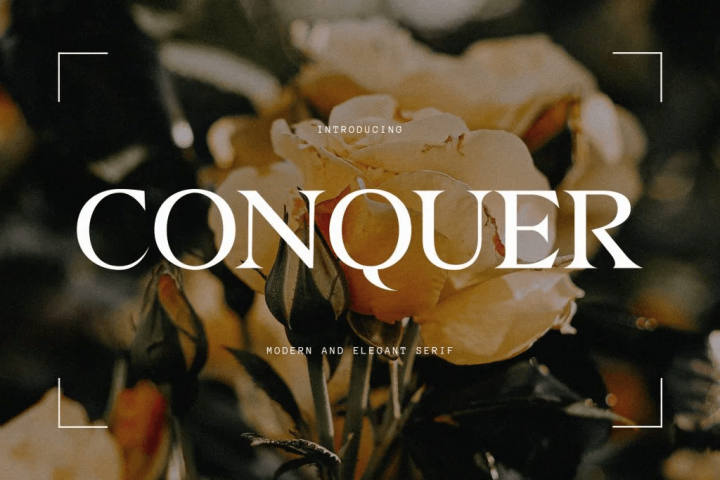
Serif fonts are often associated with tradition and luxury.
Emotional impact:
- Trust
- Elegance
- Sophistication
Best for:
- Wedding florists
- Luxury floral brands
2. Sans-Serif Fonts: Clean and Modern
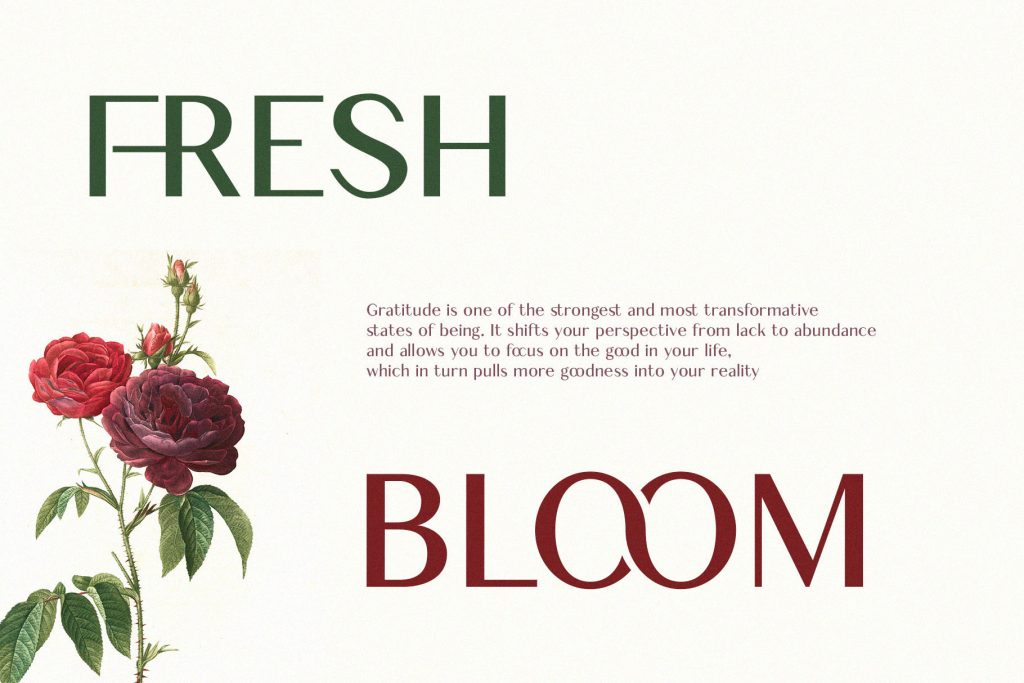
Sans-serif fonts feel simple and fresh.
Emotional impact:
- Clarity
- Modernity
- Simplicity
Best for:
- Minimalist floral brands
- Online flower shops
3. Script Fonts: Romantic and Personal
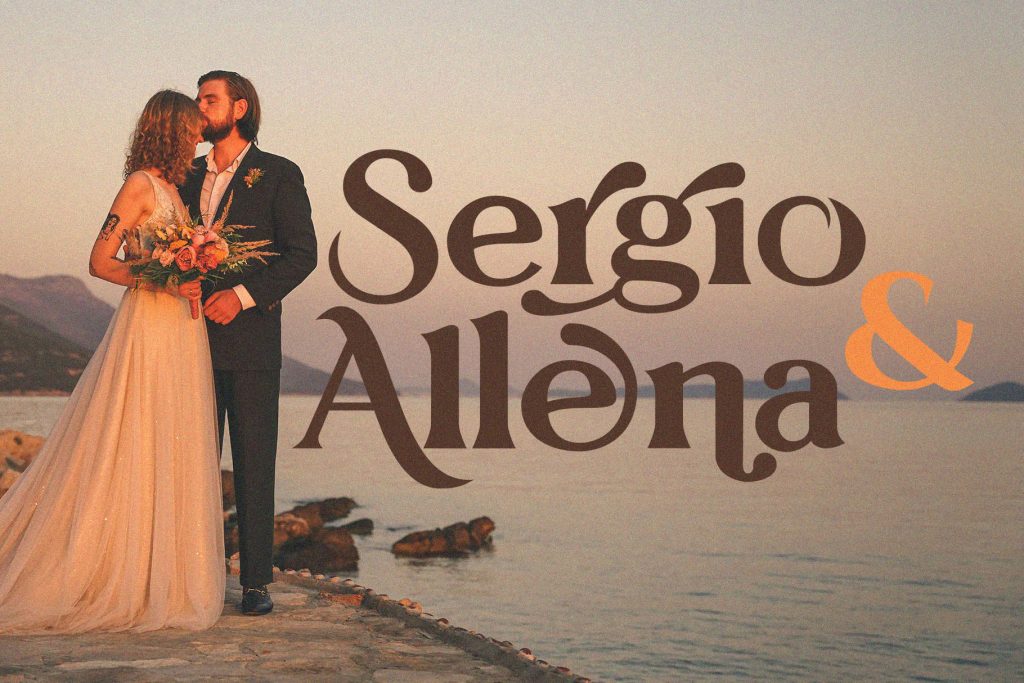
Script fonts mimic handwriting and feel emotional.
Emotional impact:
- Love
- Warmth
- Creativity
Best for:
- Romantic bouquets
- Wedding designs
4. Display Fonts: Unique and Expressive
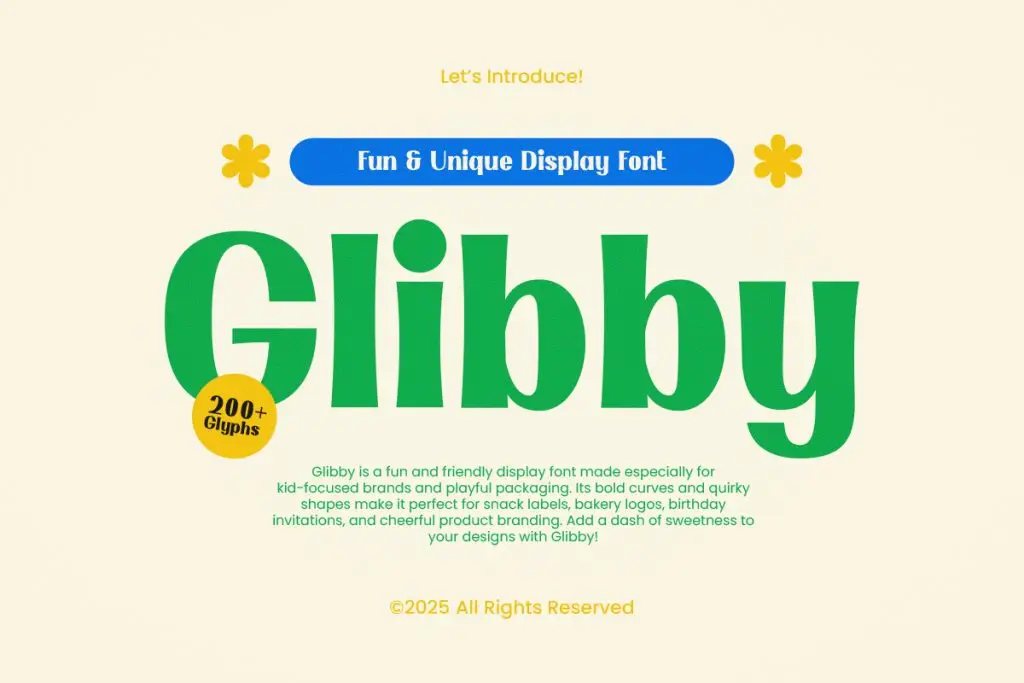
Display fonts are bold and decorative.
Emotional impact:
- Creativity
- Attention
- Personality
Best for:
- Promotional campaigns
- Seasonal designs
The Psychology of Fonts in Florist Branding and Emotion
Understanding the psychology of fonts in florist branding helps designers create emotional experiences.
For example:
- Soft script fonts → Romantic feeling
- Clean sans-serif → Fresh and natural
- Elegant serif → Premium and classic
Because of this, typography must align with the design’s emotional purpose.
Aligning Fonts with Types of Flowers
One of the most important aspects of the psychology of fonts in florist branding is aligning typography with flower types.
Roses: Romantic and Elegant
Roses represent love and passion.
Recommended fonts:
- Script fonts
- Elegant serif fonts
These fonts enhance the romantic message.
Tulips: Fresh and Modern
Tulips symbolize simplicity and freshness.
Recommended fonts:
- Clean sans-serif fonts
- Minimal typography
This combination reflects a modern look.
Sunflowers: Bright and Cheerful
Sunflowers are associated with happiness.
Recommended fonts:
- Playful fonts
- Rounded sans-serif fonts
These fonts create a joyful atmosphere.
Orchids: Luxury and Sophistication
Orchids represent elegance and exclusivity.
Recommended fonts:
- Thin serif fonts
- Stylish script fonts
This pairing creates a premium feel.
Wildflowers: Natural and Organic
Wildflowers feel free and natural.
Recommended fonts:
- Handwritten fonts
- Organic-style typography
These fonts create authenticity.
How to Apply the Psychology of Fonts in Florist Branding
1. Match Typography with Emotion
Always consider the message:
- Wedding → Romantic fonts
- Sympathy → Soft and calm fonts
- Celebration → Bright and playful fonts
2. Combine Fonts Carefully
Use 2–3 fonts:
- Script font → Headline
- Sans-serif → Body text
This creates balance and readability.
3. Use Color to Support Typography
Typography works best with the right colors:
- Pastel → Soft and romantic
- Green → Natural and fresh
- Gold → Luxury
4. Maintain Consistency
Consistency across branding elements builds trust.
How Typography Influences Customer Decisions
Typography plays a major role in customer behavior.
For example:
- Elegant fonts → Higher perceived value
- Clean fonts → Trust and clarity
- Playful fonts → Friendly and approachable
As a result, typography can influence purchasing decisions.
Conclusion
Understanding the psychology of fonts in florist branding allows designers to create designs that are not only beautiful but also meaningful. Typography shapes how customers feel and perceive floral brands.
Moreover, by aligning fonts with emotions and flower types, designers can create stronger visual storytelling. In the end, typography is not just about design; it is about communication and connection.